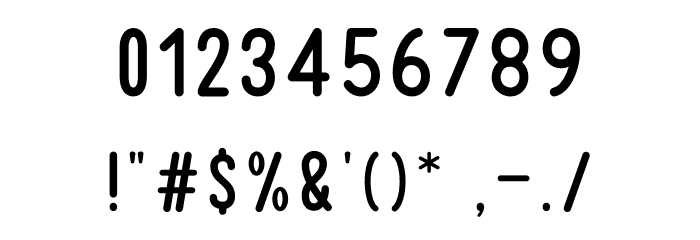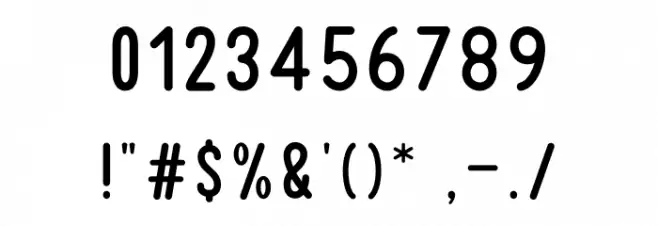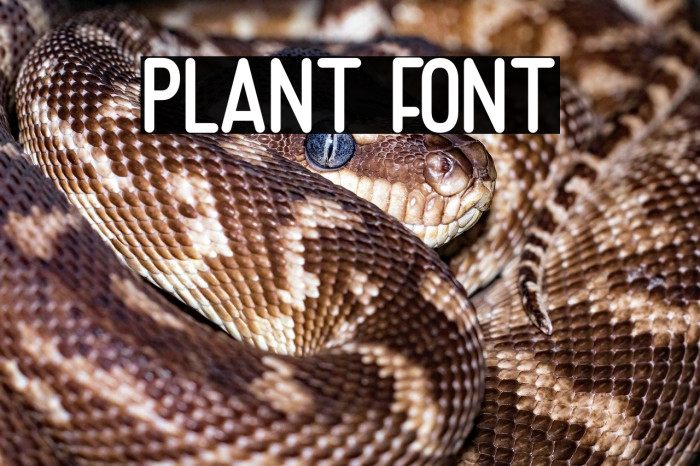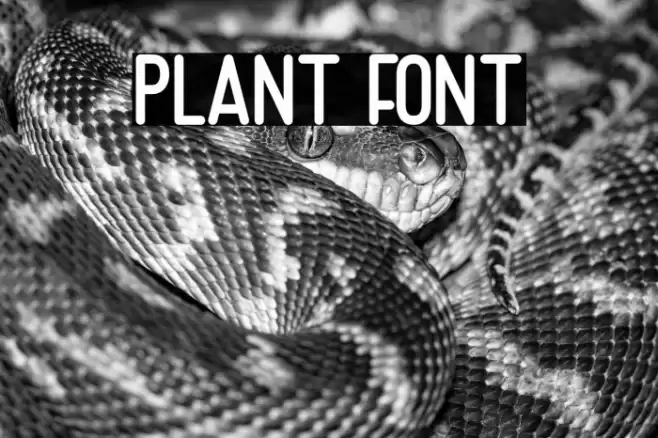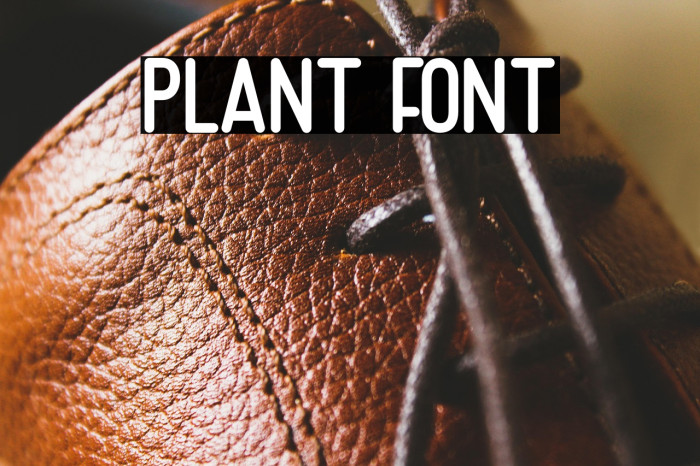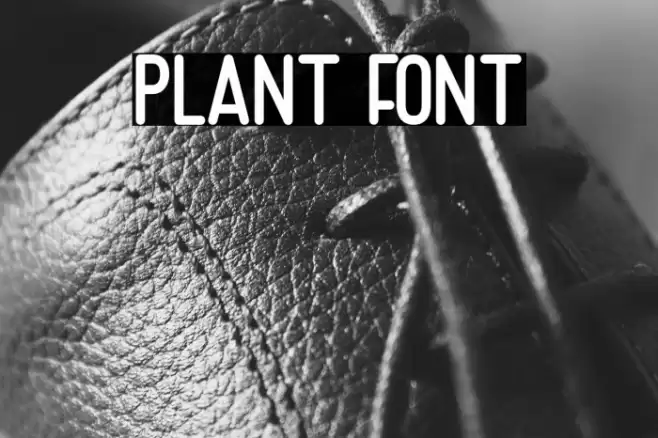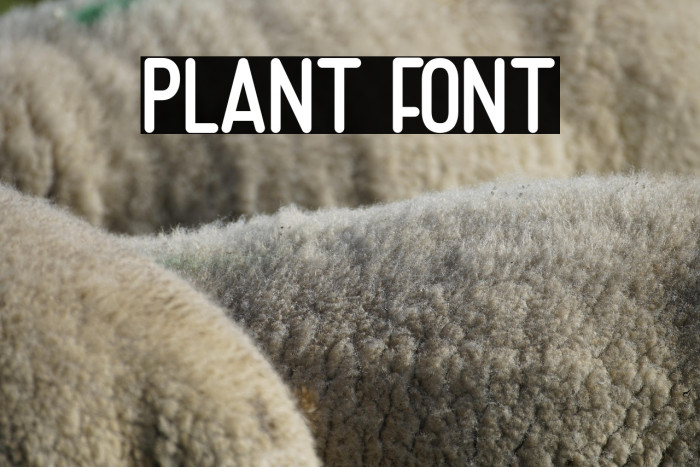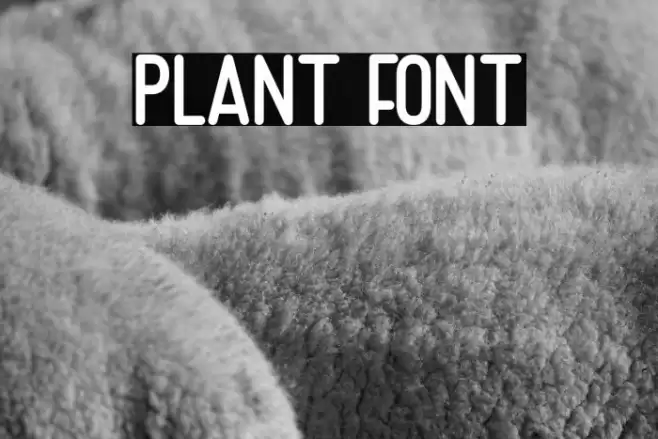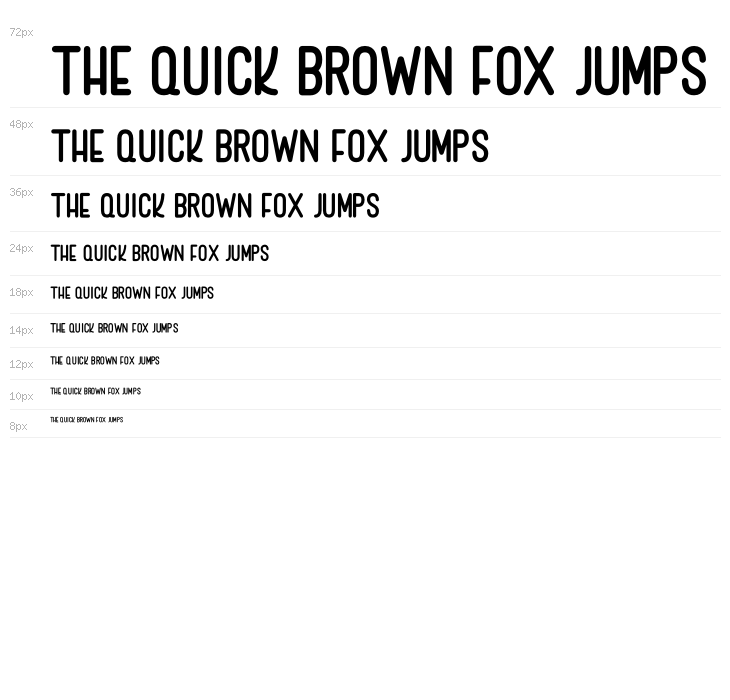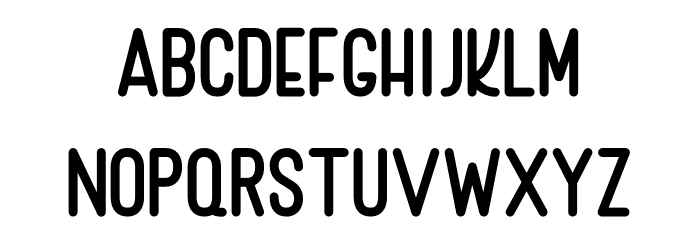
Plant Font
Plant Description
This font features a clean and modern sans-serif style with rounded edges, giving it a friendly and approachable appearance. The characters are evenly spaced, providing a balanced and harmonious look. The uppercase and lowercase letters maintain a consistent height, contributing to its readability. The numerals are clear and distinct, matching the overall aesthetic. Special characters are well-integrated, ensuring versatility in various design contexts. This font's simplicity and clarity make it suitable for a wide range of applications, from digital interfaces to print media.